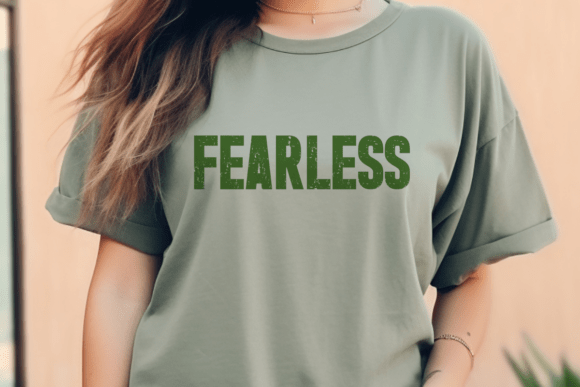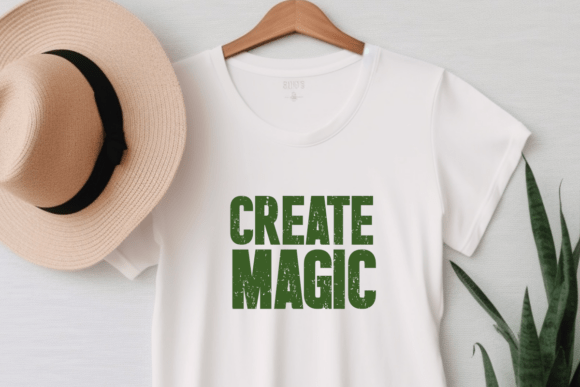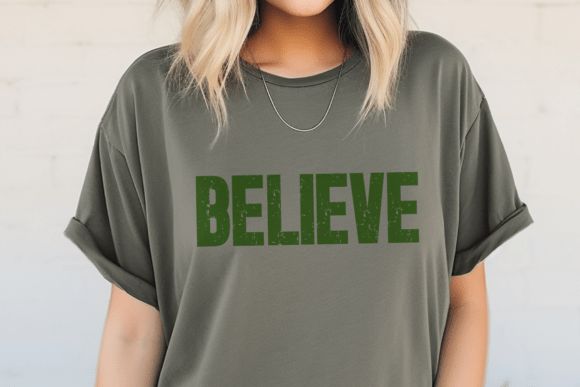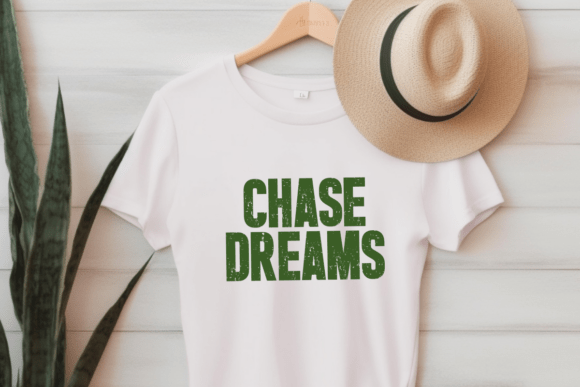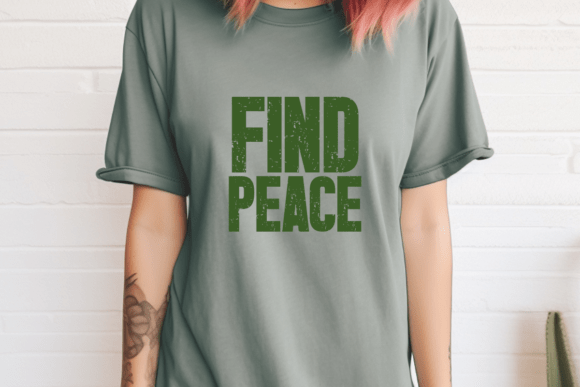
Introducing Condensa Font: The Perfect Blend of Modern and Vintage
In the world of typography, fonts play a crucial role in conveying the tone and personality of a design. For designers and crafters looking for a modern yet simple font with a stunning vintage feel, Condensa Font is an excellent choice. This modern condensed sans-serif font is perfect for a wide range of design projects, from logos and branding to t-shirts, mugs, and more.
What is Condensa Font?
Condensa Font is a carefully crafted font that combines the elegance of modern typography with the charm of vintage design. Its condensed sans-serif style makes it ideal for use in a variety of applications, from large headlines to small body text. The font’s clean lines, simple shapes, and classic feel make it a versatile choice for designers and crafters looking to add a touch of sophistication to their work.
Key Features of Condensa Font
- Modern Condensed Sans-Serif Style: Condensa Font boasts a sleek and modern design with a condensed sans-serif style, perfect for creating eye-catching headlines and body text.
- Vintage Feel: The font’s classic lines and simple shapes give it a stunning vintage feel that’s perfect for designs that require a touch of nostalgia.
- Highly Versatile: Condensa Font is suitable for a wide range of design projects, from logos and branding to t-shirts, mugs, invitations, and more.
- Easy to Read: The font’s clean lines and simple shapes make it easy to read, even at small sizes.
Use Cases for Condensa Font
Condensa Font is perfect for a wide range of design projects, including:
- Logos and Branding: Create a professional and memorable logo with Condensa Font.
- T-Shirts and Apparel: Add a touch of style to your t-shirts and apparel with this modern and trendy font.
- Mugs and Drinkware: Create eye-catching designs for mugs, water bottles, and other drinkware.
- Invitations and Greeting Cards: Add a touch of elegance to your invitations and greeting cards with Condensa Font.
- Posters and Flyers: Create stunning posters and flyers with this modern and versatile font.
- Packaging and Signs: Use Condensa Font to create eye-catching packaging and signs that stand out.
- Cutting Boards and Printables: Add a touch of personality to your cutting boards and printables with this unique font.
- Crafting and DIY Projects: Use Condensa Font to add a professional touch to your crafting and DIY projects.
Why Choose Condensa Font?
With so many fonts available, why choose Condensa Font? Here are a few reasons why designers and crafters love this font:
- Unique Style: Condensa Font offers a unique blend of modern and vintage styles that’s hard to find in other fonts.
- Highly Versatile: This font is suitable for a wide range of design projects, making it a great addition to any design library.
- Professional Results: With Condensa Font, you can create professional-looking designs that are sure to impress.
In conclusion, Condensa Font is a modern condensed sans-serif font with a stunning vintage feel that’s perfect for designers and crafters looking to add a touch of sophistication to their work. With its highly versatile style, ease of use, and professional results, Condensa Font is an excellent choice for a wide range of design projects. Whether you’re creating logos, t-shirts, mugs, or more, Condensa Font is the perfect choice for a modern yet simple design.